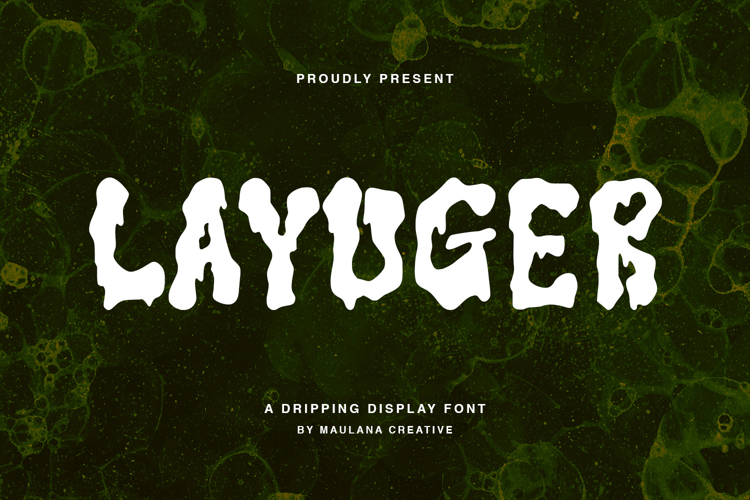
Layuger is a horror display font with a unique, creepy dripping effect. It's perfect for horror, zombie, apocalypse, thriller, Halloween, and sci-fi post-apocalyptic design projects. Its fluid-textured letterforms, reminiscent of dripping blood or slime, create a terrifying yet artistic feel. With its bold, unique characters and eerie atmosphere, Layuger will make your designs stand out and make an impression.
Layuger is a creepy dripping display horror font with a creepy style, suitable for Halloween designs, zombie designs, thriller films, and apocalypse-themed branding.